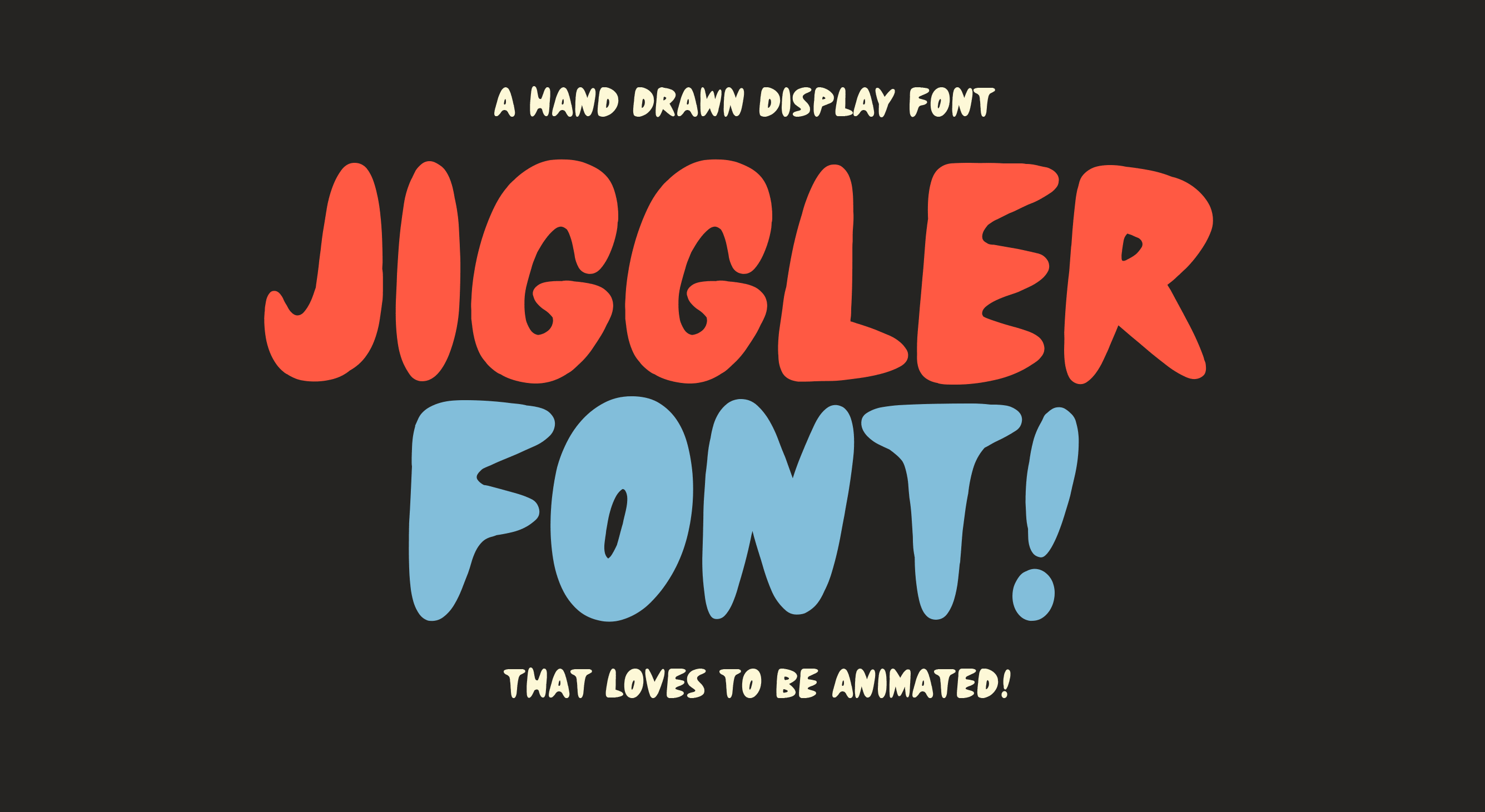
Jiggler Font
This hand drawn font loves to be animated. I made 3 different versions that are nearly the same—just drawn with slight imperfections between each. This allows for easy animated type that has that old-school animation jiggle. Having 3 versions of each letter is also helpful if you just want to make sure your type lock-up has an authentic hand-made feel because you make sure exact letters don't appear more than once.